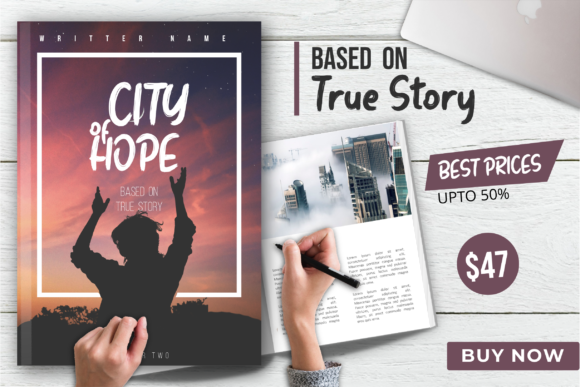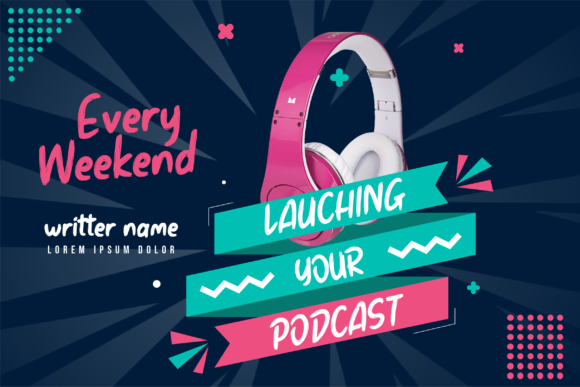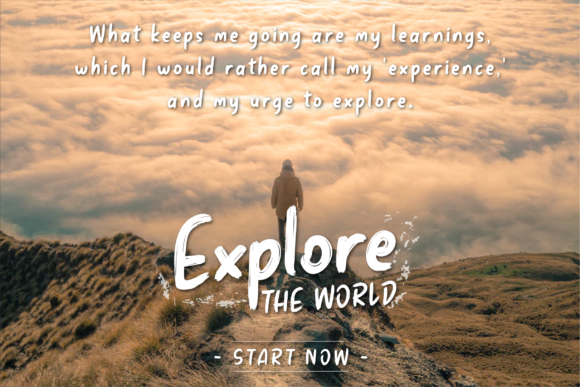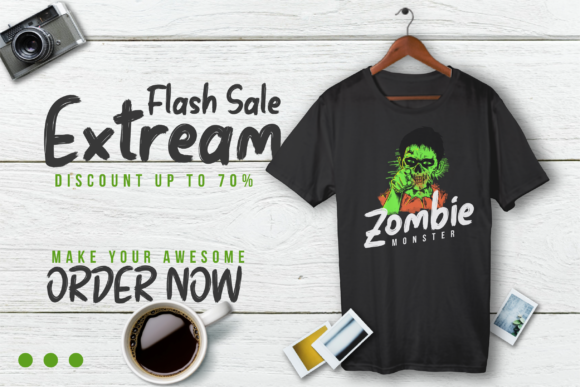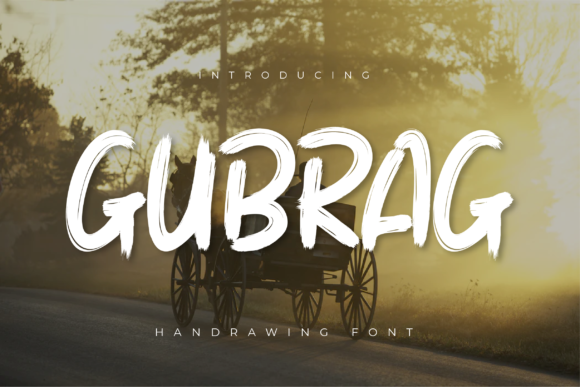
Gubrag Font: The Ultimate Display Font for Creative Projects
Are you tired of using the same old fonts for your creative projects? Look no further than Gubrag Font, a bold and chunky lettered display font that’s sure to make your designs stand out. Created with the help of a brush pen, Gubrag Font brings a unique and artistic touch to any project.
What is Gubrag Font?
Gubrag Font is a display font that’s perfect for designers, crafters, and anyone looking to add a personal touch to their creative projects. Its bold and chunky letters are created with a brush pen, giving it a distinctive and hand-crafted feel. Whether you’re working on a logo, poster, or social media graphic, Gubrag Font is sure to make your design pop.
Features of Gubrag Font
- Bold and Chunky Letters: Gubrag Font features bold and chunky letters that are sure to grab attention.
- Brush Pen Created: The font is created with the help of a brush pen, giving it a unique and artistic touch.
- High-Quality Design: Gubrag Font is designed with high-quality and precision, ensuring that it looks great in any size or resolution.
How to Use Gubrag Font
Using Gubrag Font is easy and straightforward. Here are a few ways you can incorporate it into your creative projects:
- Logos and Branding: Use Gubrag Font to create a bold and eye-catching logo that’s sure to make your brand stand out.
- Posters and Flyers: Add Gubrag Font to your posters and flyers to give them a unique and artistic touch.
- Social Media Graphics: Use Gubrag Font to create social media graphics that are sure to grab attention and get noticed.
- Crafting and Scrapbooking: Add Gubrag Font to your crafting and scrapbooking projects to give them a personal and creative touch.
Benefits of Using Gubrag Font
There are many benefits to using Gubrag Font in your creative projects. Here are a few:
- Unique and Artistic Touch: Gubrag Font adds a unique and artistic touch to any project, making it stand out from the crowd.
- Increased Visibility: The bold and chunky letters of Gubrag Font are sure to grab attention and increase visibility.
- Easy to Read: Despite its bold and chunky design, Gubrag Font is easy to read and understand, making it perfect for a wide range of projects.
- Versatile: Gubrag Font is versatile and can be used in a wide range of projects, from logos and branding to posters and social media graphics.
Tips for Getting the Most Out of Gubrag Font
Here are a few tips for getting the most out of Gubrag Font:
- Experiment with Different Sizes: Experiment with different sizes and resolutions to see how Gubrag Font looks in different contexts.
- Combine with Other Fonts: Combine Gubrag Font with other fonts to create a unique and eye-catching design.
- Use in Combination with Images: Use Gubrag Font in combination with images to create a visually appealing design.
- Play with Colors: Play with different colors and textures to see how they affect the overall look and feel of Gubrag Font.
In conclusion, Gubrag Font is a bold and chunky lettered display font that’s perfect for designers, crafters, and anyone looking to add a personal touch to their creative projects. Its unique and artistic design, combined with its ease of use and versatility, make it a must-have font for anyone looking to make their designs stand out.